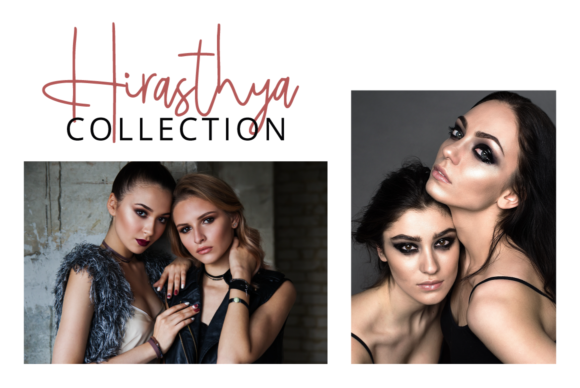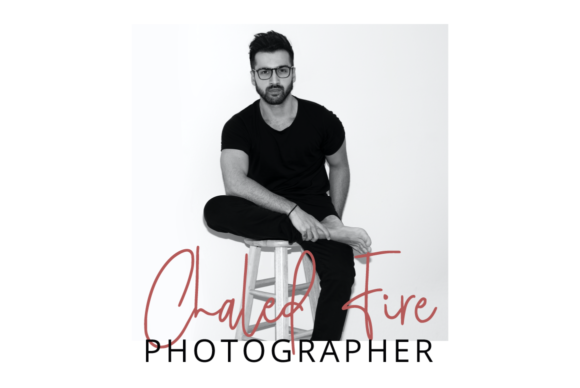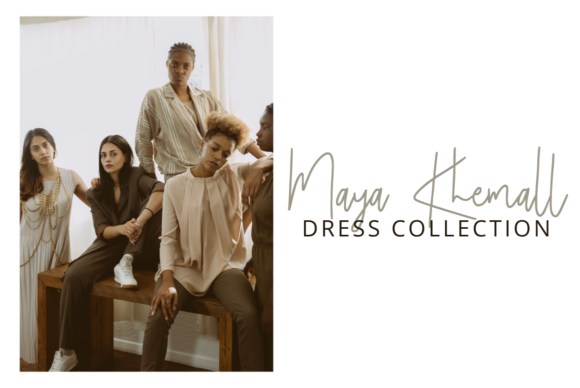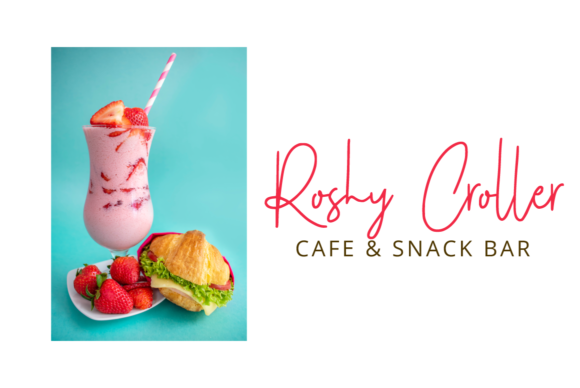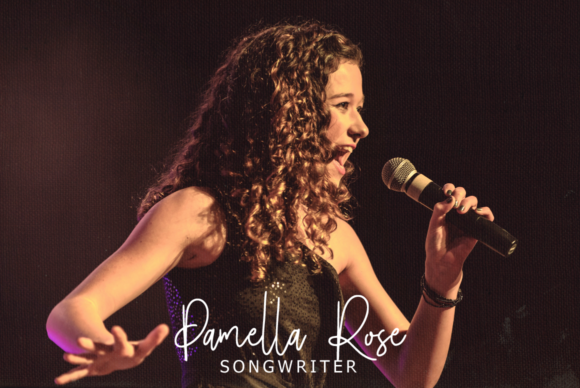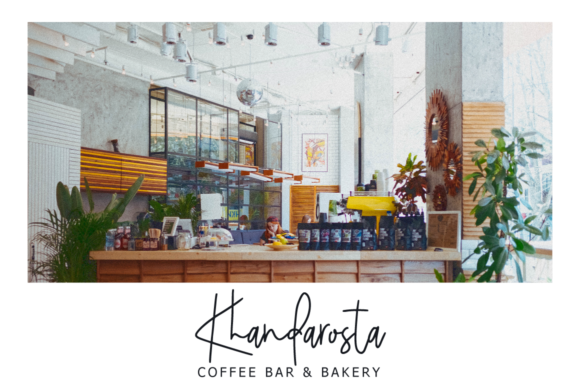
When Creativity Strikes
There’s a moment when an idea hits you, and you can’t wait to bring it to life. Maybe it’s a new project, a personal milestone, or a creative collaboration. Whatever it is, the excitement is palpable. And when it comes to expressing that excitement, the right font can make all the difference.
Meet the Adestya Font, a stunning typeface that combines handmade charm with a playful touch. Its decorative characters and dancing baseline make it perfect for invitations, greeting cards, branding materials, and more. With its PUA encoding, designers can access all the glyphs and swashes with ease, unlocking endless creative possibilities.
For designers, the Adestya Font is a valuable addition to any toolkit. Its unique style and versatility make it an ideal choice for projects that require a touch of elegance and whimsy.
Adestya Font Key Features
- Character Set: The font contains a wide range of characters, including Latin, Cyrillic, and Greek alphabets, as well as punctuation and symbols.
- Unique Characteristics: The font features a unique blend of modern and traditional elements, with a focus on elegance and sophistication.
Adestya Font Review
At first glance, Adestya Font seems like a promising addition to any designer’s toolkit. Here are some aspects that really shine ✨:
- Elegant and Modern Design: Adestya Font boasts a sleek, contemporary look that’s perfect for modern branding and digital projects.
- Excellent Readability: The font’s clear and well-spaced design makes it easy to read, even at smaller sizes.
- Versatile Use Cases: Whether you’re working on a website, app, or social media campaign, Adestya Font adapts well to various mediums.
However, there are some limitations to consider ⚠️:
- Limited Character Set: Adestya Font’s character set is somewhat limited, which might cause issues for designers working with non-Latin scripts.
- Not Ideal for Body Text: While Adestya Font excels at headings and titles, it’s not the best choice for body text due to its condensed width.
Overall, I’d say Adestya Font is a solid choice for designers looking for a modern, eye-catching font. While it has its limitations, it’s definitely worth considering for specific projects. Just be mindful of its limitations, and you’ll be able to get the most out of this stylish font.
Tips for Getting the Most Out of Adestya Font
Use the Adestya font for titles, headings, and emphasis.
Pair the Adestya font with other fonts for a balanced and visually appealing design.
Experiment with different font sizes and styles to create a unique and eye-catching design.
Alternatives to Adestya Font
Monserrat Font is a popular sans-serif font designed by Julieta Ulanovsky. It’s ideal for use in headings and titles due to its clean and modern design. Montserrat Font is more geometric and structured compared to Adestya Font, making it perfect for digital displays and mobile devices.
Open Sans Font is a clean and modern sans-serif font designed by Steve Matteson. It’s highly legible and suitable for body text, making it an excellent choice for lengthy content. Open Sans Font is more rounded and friendly compared to Adestya Font, making it ideal for use in digital publications and websites.
Lato Font is a modern sans-serif font designed by Łukasz Dziedzic. It’s highly customizable and comes in various weights, making it perfect for use in logos, titles, and headings. Lato Font is more elegant and sophisticated compared to Adestya Font, making it ideal for use in high-end branding and luxury products.
Q: Can I customize Adestya Font for my specific design needs?
Yes, Adestya Font is fully editable and customizable. You can modify the font’s design, spacing, and layout to suit your specific design requirements. Additionally, the font’s OpenType features allow for advanced typographic control, enabling you to create complex and customized typography.